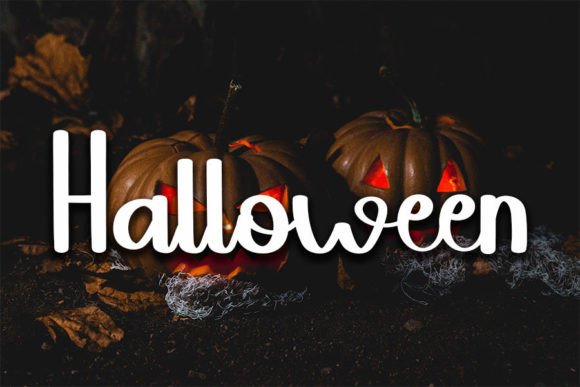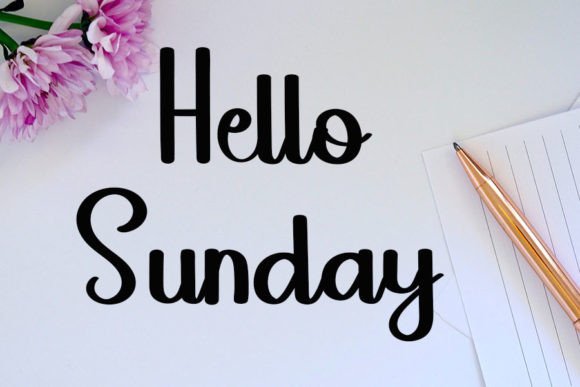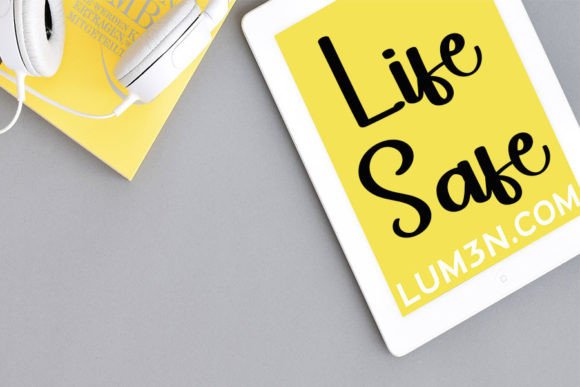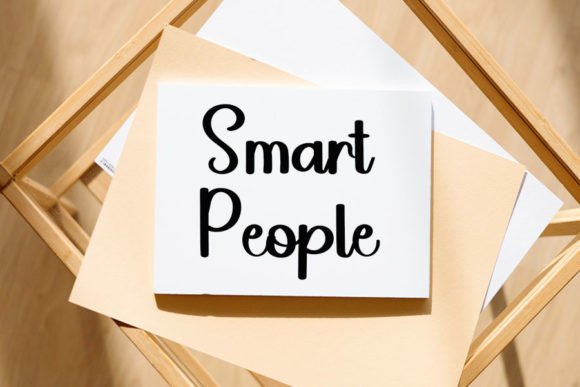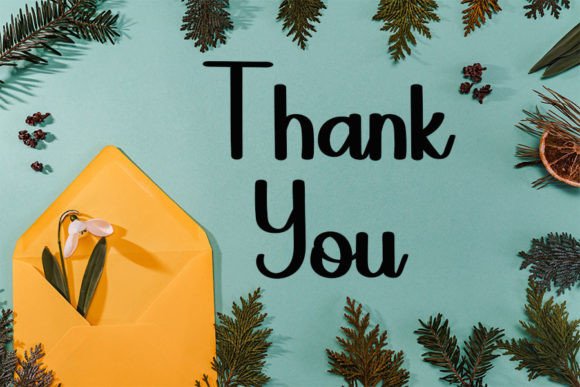
Introduction to Simple Pumkin Font
Have you ever stumbled upon a font that sparks creativity and sets your imagination ablaze? For designers, finding that perfect font can be a game-changer, elevating a project from ordinary to extraordinary. I still remember the moment I discovered the Simple Pumkin Font, and it instantly became my go-to choice for all my creative endeavors.
With its unique blend of elegance and quirkiness, this magical handwritten font is a design treasure trove. Whether you’re working on a logo, branding, social media, or a crafty DIY project, the Simple Pumkin Font is the perfect companion to bring your vision to life. Its clean lines and subtle charm make it an ideal choice for designers seeking a high-quality font that exudes sophistication and creativity.
Key Features of Simple Pumkin Font
- Unique, playful design perfect for creative projects and Halloween-themed designs
- Perfect for use in graphic design, digital art, and other creative pursuits
Honest Review: Simple Pumkin Font
As a designer, I’m always on the lookout for high-quality design resources to elevate my creative projects. The Simple Pumkin Font has caught my attention, and I’m excited to share my honest review.
- ✨ Beautiful, elegant design that’s perfect for fall-themed projects or any project that requires a touch of warmth.
- ✨ High-quality vector graphics ensure crisp and clear text, even when scaled up or down.
- ✨ Transparent background option allows for easy customization and integration into various design contexts.
What could improve:
- ⚠️ Limited character set, which might be a concern for designers working on longer text-based projects.
- ⚠️ No bold or italic variations available, which could be a limitation for designers who like to mix and match font styles.
Overall impression: I’m impressed with the Simple Pumkin Font’s design and quality. While it may have some limitations, it’s a great addition to any designer’s toolkit, especially for free download. It’s perfect for designers looking for a unique, high-quality font to spice up their creative projects.
To get the most out of the Simple Pumkin Font, use it in conjunction with other design elements to create a cohesive look. You can also experiment with different font sizes and colors to add visual interest to your design.
The Simple Pumkin Font is commonly used in a variety of design projects, including logos, branding materials, and social media graphics. It’s also a great choice for creating high-quality print materials, such as business cards and brochures.